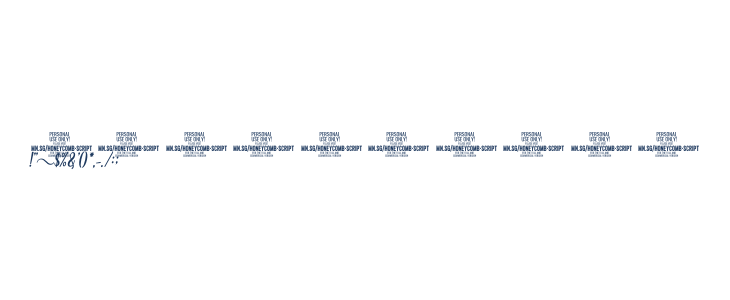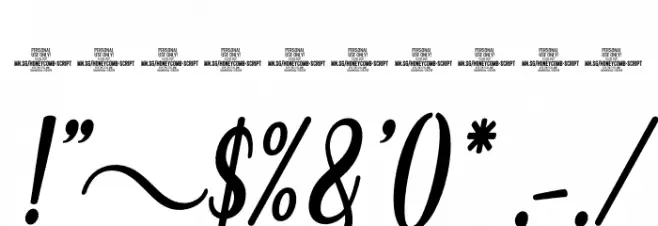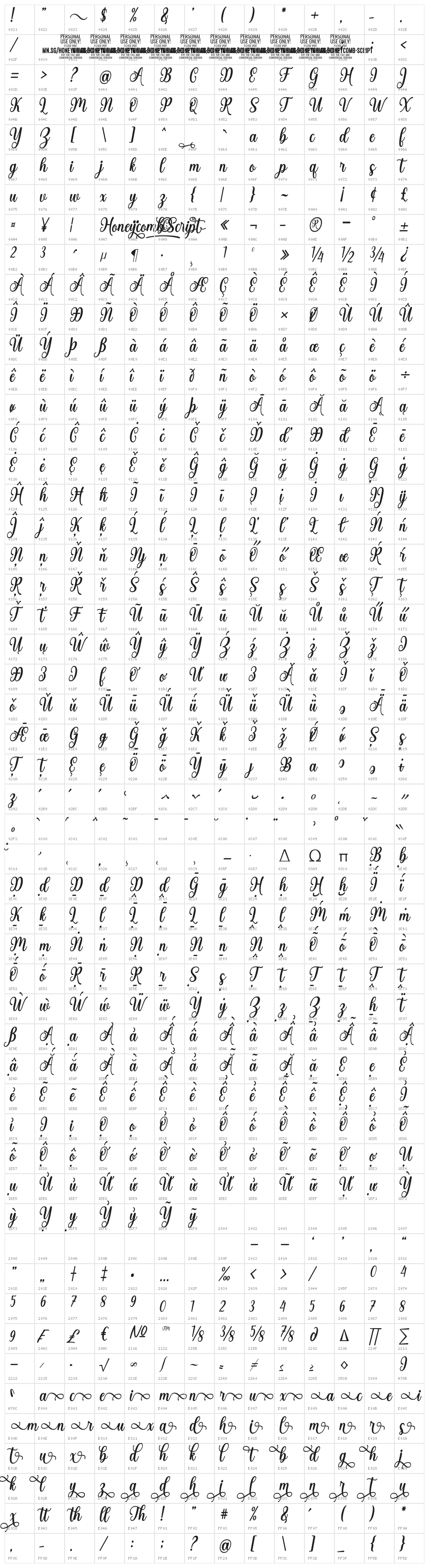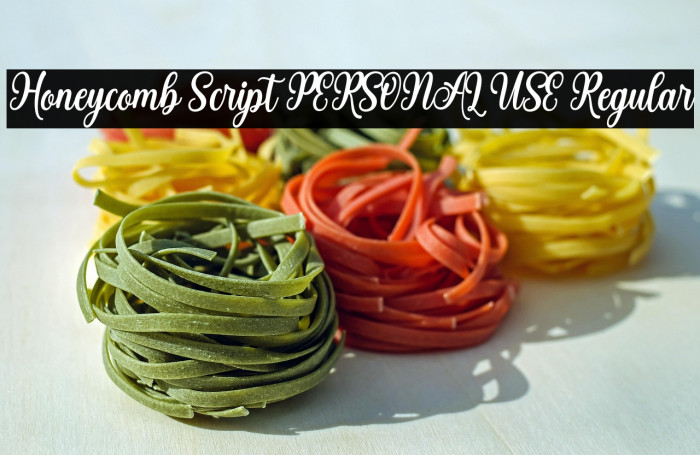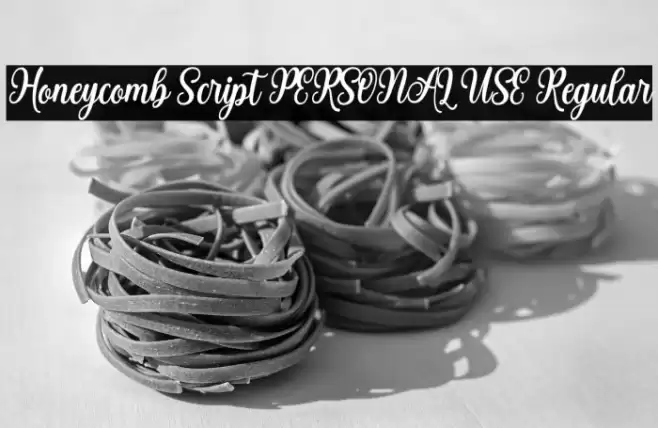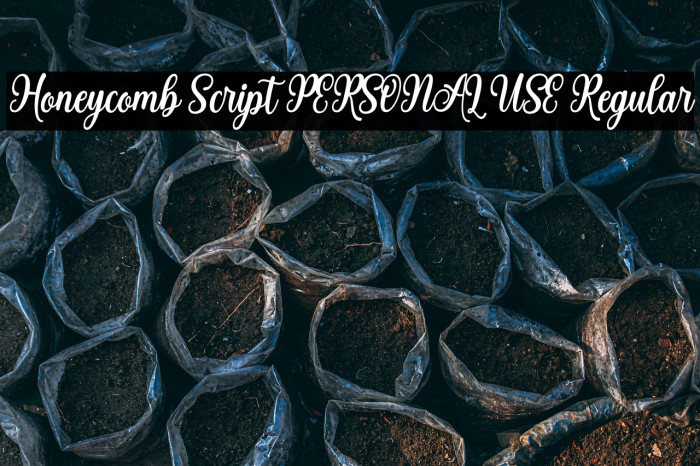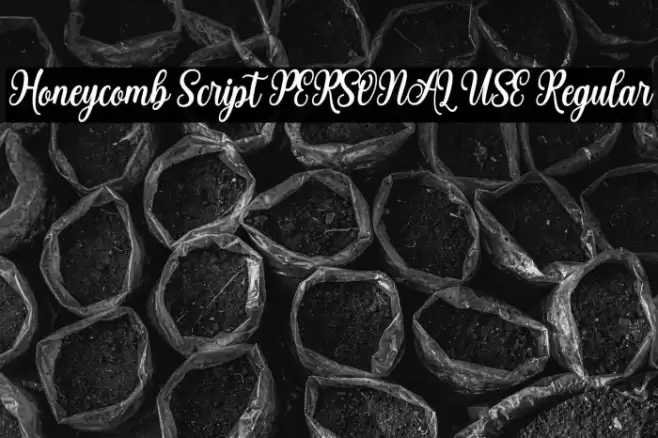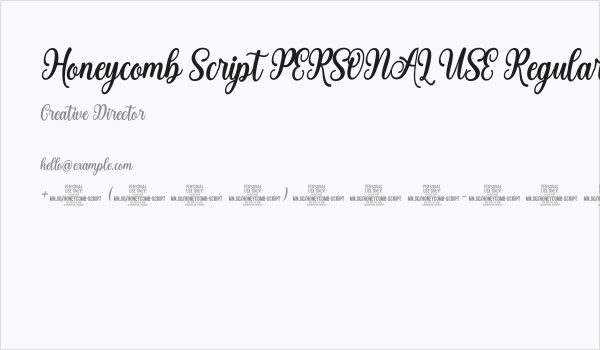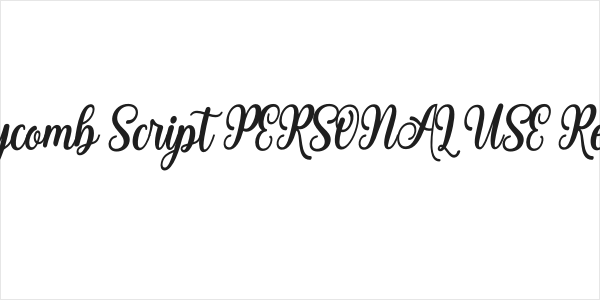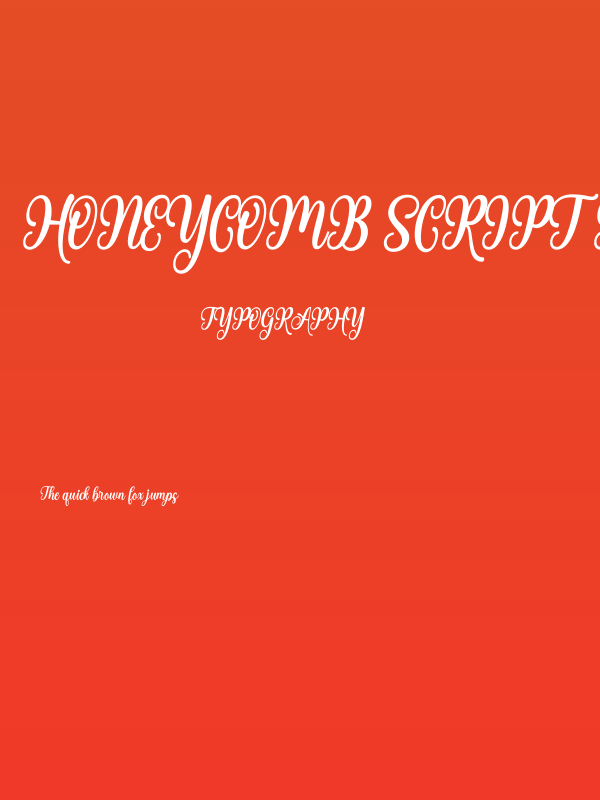
Honeycomb Script PERSONAL USE Regular Font
Honeycomb Script PERSONAL USE Regular Description
This font features a flowing, elegant script style with a modern twist. The characters are interconnected, creating a seamless and fluid appearance. The uppercase letters are ornate, with intricate loops and curves, while the lowercase letters maintain a consistent flow, enhancing readability. The numbers and special characters are designed to match the overall aesthetic, with a playful yet sophisticated look. This font exudes a sense of elegance and charm, making it perfect for creative and decorative applications.
| Use Case | Logos, Invitations, Decorative Text |
| Proposed Projects | Ideal for wedding invitations, greeting cards, branding, and logo design, where a touch of elegance and sophistication is desired. |